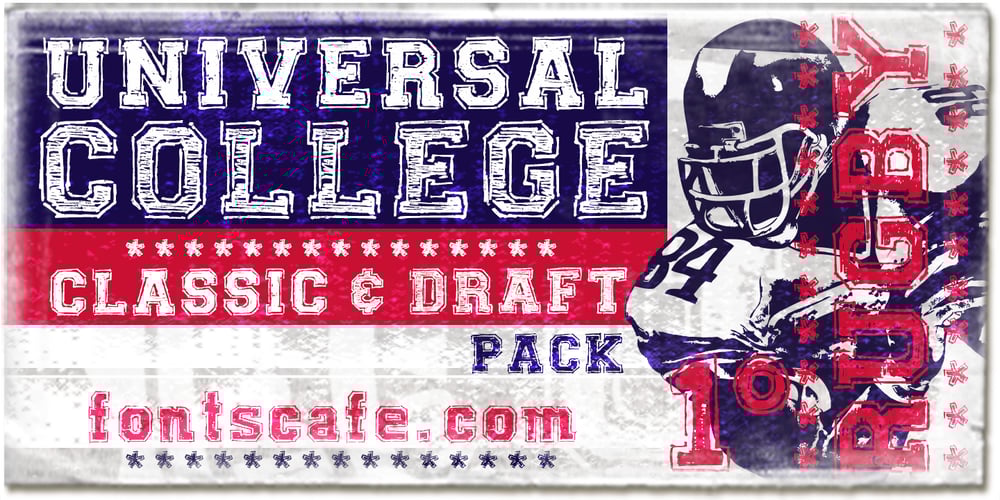
Universal College Font Family was designed by published by Fontscafe. Universal College contains 2 styles and family package options. If there is one Fonts Café specially-priced pack that deserves the title “TEAM” it’s “Universal College.” Together, these two vintage, college-style fonts: the original CLASSIC, and our latest “DRAFT” pick, are the no-sweat, first line players for all your varsity design challenges and goals. Classy enough for every sport, season or celebration, and casual enough for any campus clothing creation. “Universal College” typefaces are also available individually: our original classic version has the handcrafted, retro feel that Fonts Café best-selling typefaces are world famous for. “Draft” has the edge that designers worldwide have come to expect from fontscafe.com and that you can find in many of our other retro and vintage typefaces.